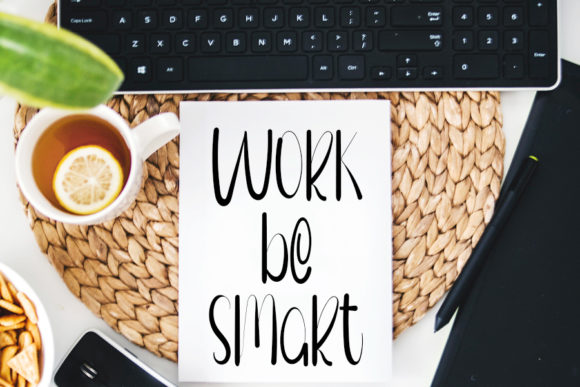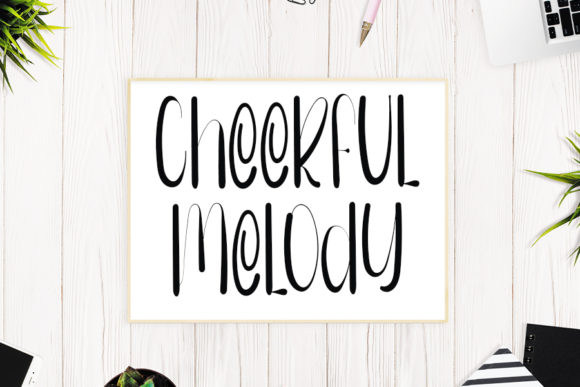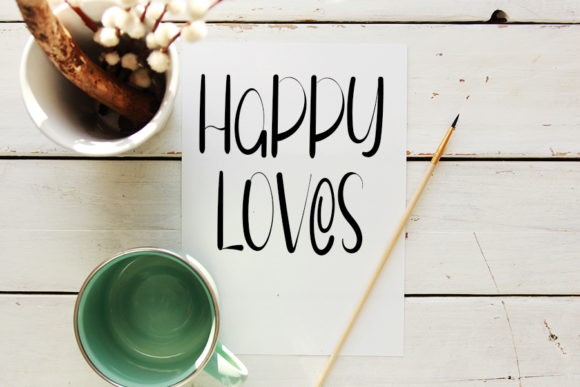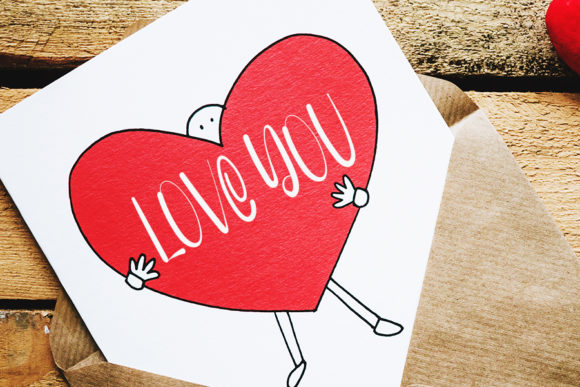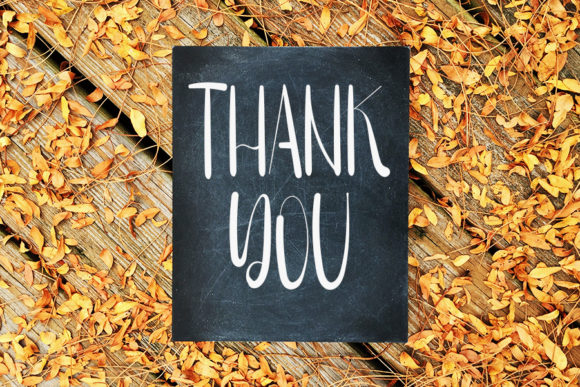
Hello Caty Font: The Perfect Addition to Your Design Projects
Hello Caty Font is a delightful and charming handwritten font that has been making waves in the design community. This simple yet adorable font is perfect for designers and crafters looking to add a touch of personality to their projects. In this article, we’ll dive into the features and benefits of Hello Caty Font, and explore how it can elevate your designs to the next level.
A Balanced and Versatile Font
Hello Caty Font is a beautifully crafted handwritten font that strikes the perfect balance between being too thin and too thick. The font’s balanced and varied strokes make it an excellent choice for a wide range of design projects, from digital crafts to editorial designs. The font’s versatility ensures that it can be used in various contexts, from titles and headings to body text and captions.
Designed to Enhance Beauty
Hello Caty Font was designed with one goal in mind: to enhance the beauty of your projects. The font’s creator aimed to craft a font that would add a touch of elegance and sophistication to any design. With Hello Caty Font, you can add a dash of personality to your projects, making them stand out from the crowd. Whether you’re working on a branding project, a digital craft, or a editorial design, Hello Caty Font is the perfect choice.
Hello Caty Font is a dream come true for designers and crafters. The font’s simplicity and charm make it an excellent choice for a wide range of design projects, including:
- Digital crafts: Add a personal touch to your digital crafts, such as planners, journals, and printable art.
- Editorial designs: Use Hello Caty Font to add a touch of elegance to your editorial designs, such as magazines, brochures, and newspapers.
- Branding projects: Create stunning brand identities with Hello Caty Font, perfect for logos, business cards, and letterheads.
- Social media graphics: Add a dash of personality to your social media graphics, such as Instagram posts, Facebook graphics, and Twitter headers.
Key Features of Hello Caty Font
Hello Caty Font comes with a range of features that make it an excellent choice for designers and crafters. Some of the key features include:
- Handwritten style: Hello Caty Font boasts a beautiful handwritten style that’s perfect for adding a personal touch to your designs.
- Balanced strokes: The font’s balanced strokes ensure that it’s not too thin or too thick, making it perfect for a wide range of design projects.
- Variety of characters: Hello Caty Font comes with a range of characters, including uppercase and lowercase letters, numbers, and punctuation marks.
- Easy to read: The font is easy to read, making it perfect for body text and captions.
Hello Caty Font is a charming and versatile handwritten font that’s perfect for designers and crafters. With its balanced and varied strokes, this font is sure to enhance the beauty of your projects. Whether you’re working on a digital craft, editorial design, or branding project, Hello Caty Font is an excellent choice. So why not give it a try and see how it can elevate your designs to the next level?